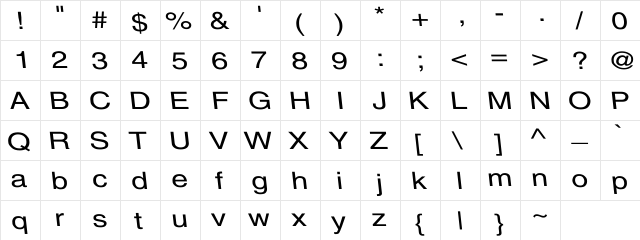
SchnellerMedium Wd Regular
SchnellerMedium Wd takes a measured approach to typography — its balanced proportions and neutral character make it a reliable workhorse for both digital and print work.